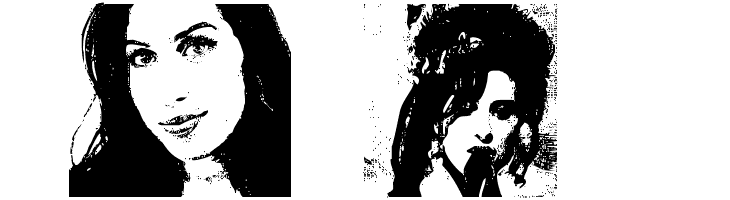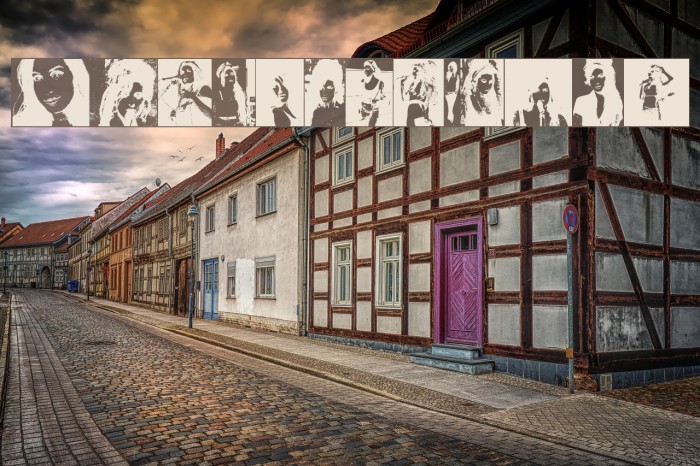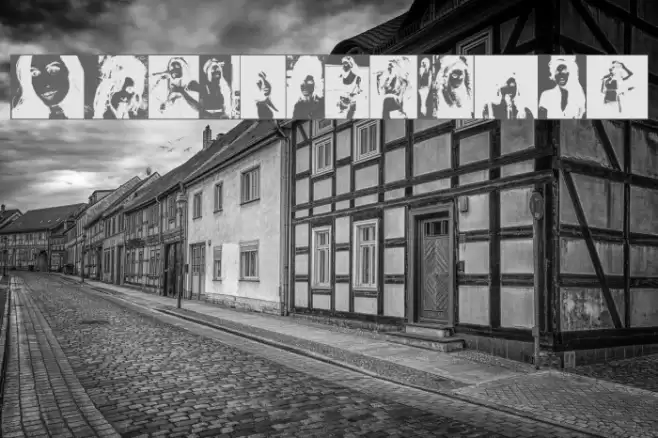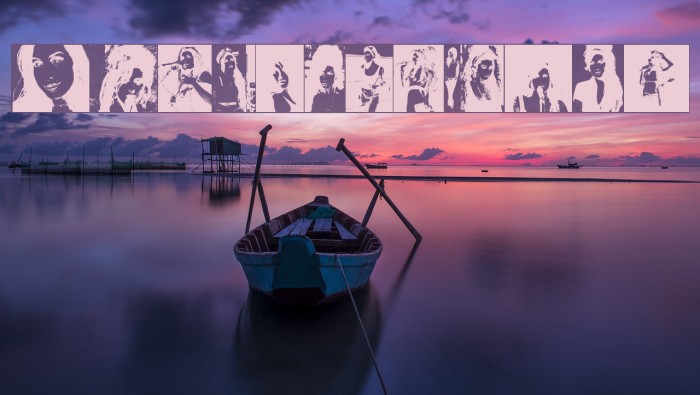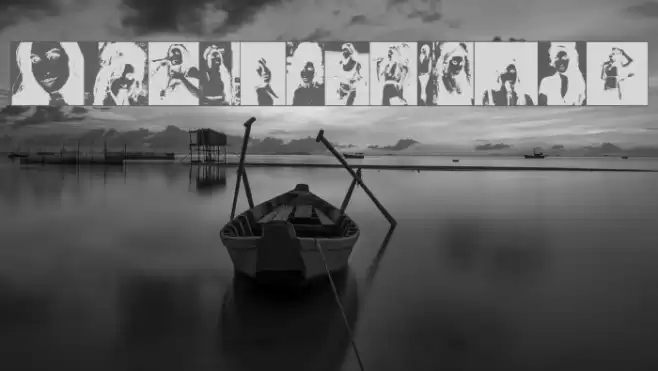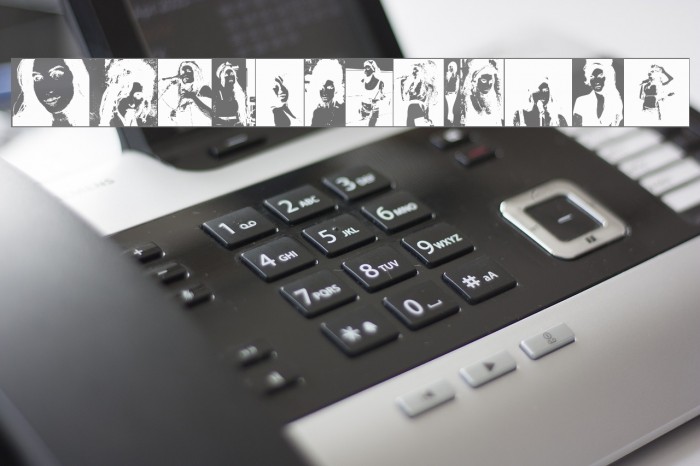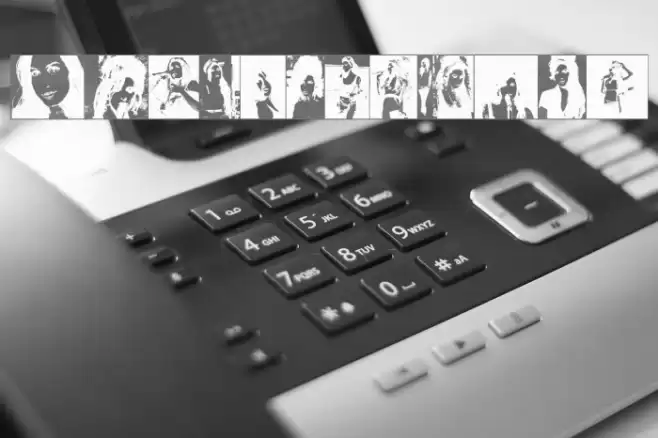
AmyBats1 Font
AmyBats1 Description
This set consists of high-contrast, black-and-white bitmap images of a person in various poses, used as glyphs instead of traditional alphanumeric characters. Each character is represented by a unique portrait or scene, creating a visually striking and unconventional display.
| Overall Style | Decorative, Artistic, Experimental |
| Use Case | Display, Art, Headlines, Themed graphics |
| Proposed Projects | Posters, album covers, art projects, themed event invitations, creative branding. |